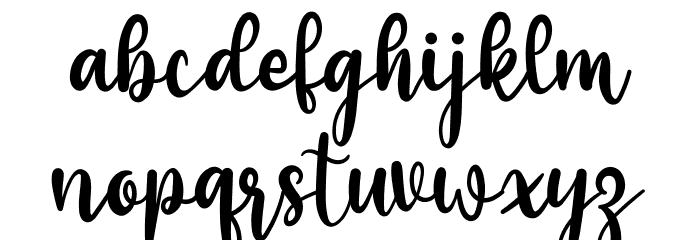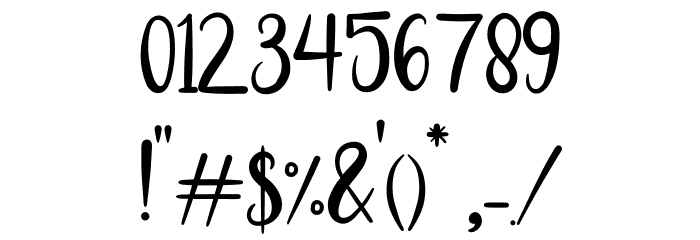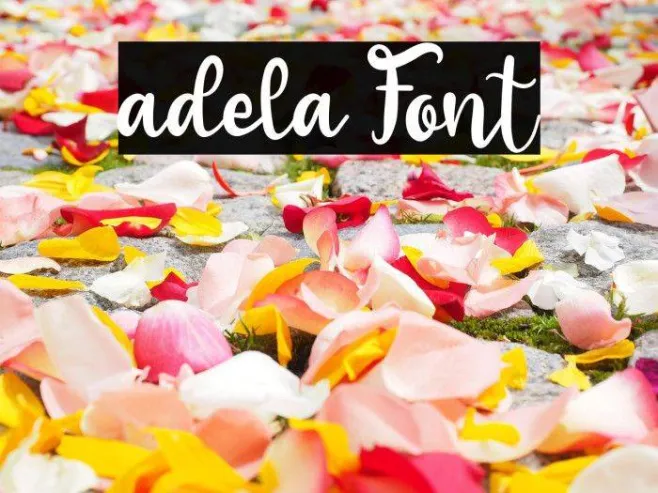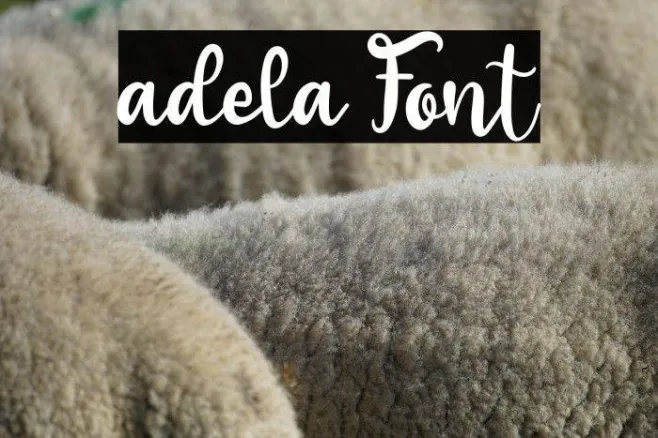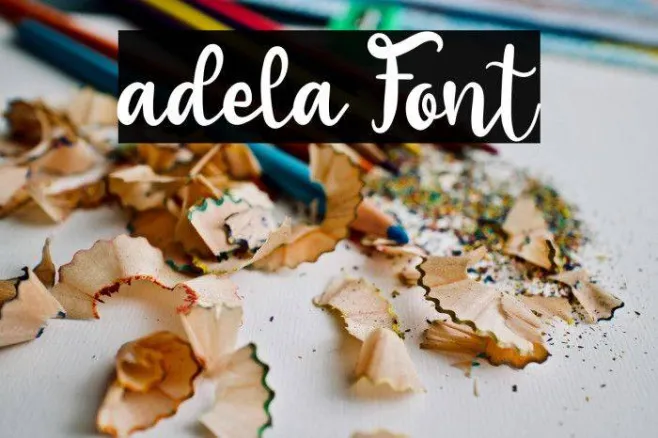
adela Font
This font features a lively and expressive script style with a handwritten feel. The uppercase letters are bold and flowing, with elegant loops and swashes that add a sense of movement and grace. The lowercase letters maintain a consistent style, with smooth curves and a slightly playful appearance. The numerals are clear and legible, matching the overall aesthetic with their rounded forms. Special characters are creatively designed, integrating seamlessly with the rest of the font. This font exudes a sense of creativity and warmth, making it suitable for projects that require a personal touch.
A lively, expressive script font with a handwritten feel.
- Proposed Projects: Ideal for wedding invitations, greeting cards, branding, and social media graphics.
- Category: Script
- Use Case: Logos, Headlines, Invitations